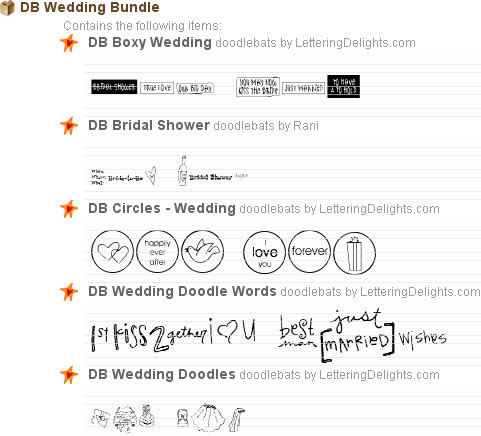
| Using
DoodleBats is easy and fun. This simple baby shower invitation
is just a hint of what you can create.
DoodleBats are listed in your font menu and you can change
size, colors and effects just as if they were a font.
With each DoodleBat, you receive a .pdf Reference Guide
which makes it simple to select the keys corresponding
to the images you want to use. DoodleBat Reference Guides
With 36 different images in each DoodleBat, there are
thousands of possible image combinations. This shower invitation
features the font LD
Hand and just nine images from the
DoodleBat
DB Baby Boy.
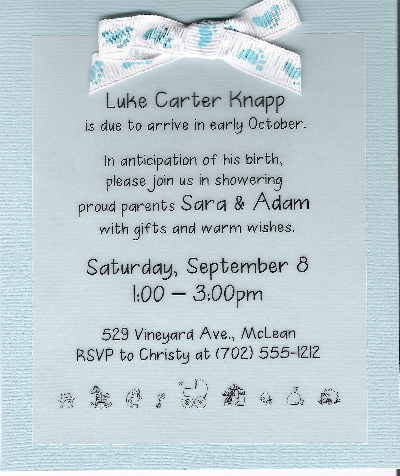 |
| Simply preselect the images you want from the
Reference Guide and type the corresponding letters into your
document. Or, if you just want to see different combinations,
simply type different letters. I usually type out all the
alphabet and numbers and then pick and choose combinations
I like. There's no right or wrong way to do it. Just have
fun and be creative! |
Kitty, Poodle
Pooch and Butterfly
Flutter, come in colorful alphabets and matching Journaling
Delights, including great clip art images.
| Jillustration's
4.
Rani's Nautical Bundle |
Ocean
Floor, beautiful
Sea
Maids and legendary 'sailors' – Arrr! Each
new design sails to you in an alphabet and Journaling
Delight set, including fun clip art images.
| Rani's Nautical
Bundle is only
The new DoodleBat
Wedding Bundle is overflowing with love and warm
wishes for the bride and groom. With five designs to
choose from, you can create personal and unique shower
invitations, announcements, cards, favors, placecards
and more for your own wedding celebration.
| The DoodleBat
Wedding Bundle is just
| Check out the three other DoodleBat bundles
just realesed. They are DB
KanjiWords Bundle, DB
Hawaiian Bundle and DB
Spring Bundle. |